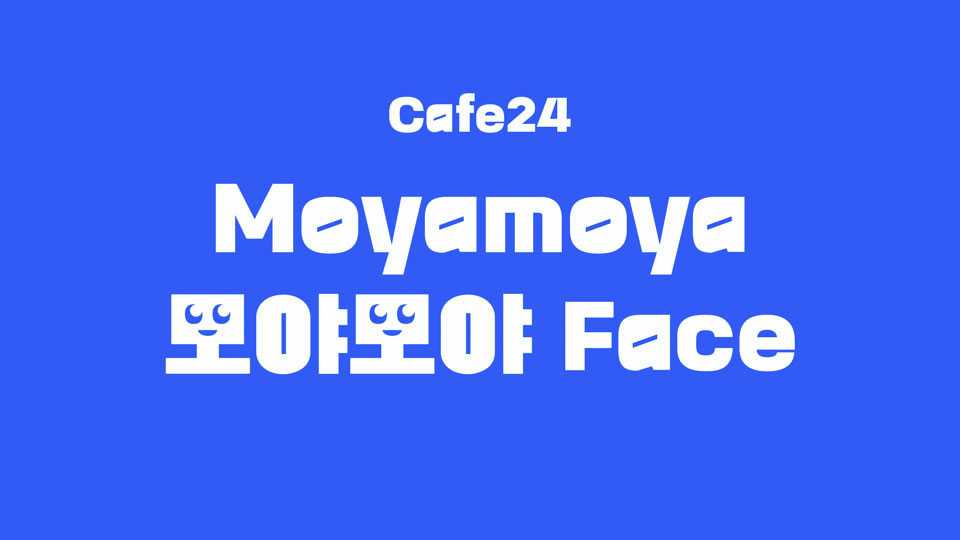
Download Cafe24 Moyamoya font, a bold and playful display typeface with a distinct personality and a delightful twist and its chunky, geometric letterforms.